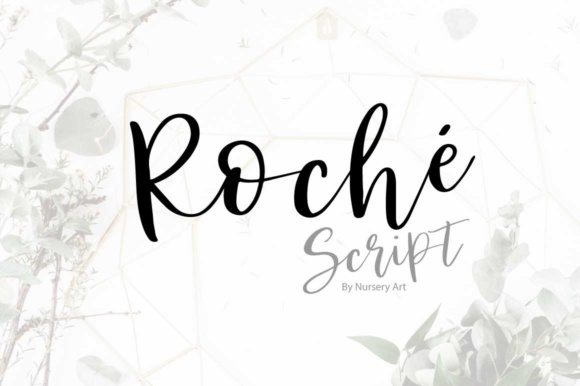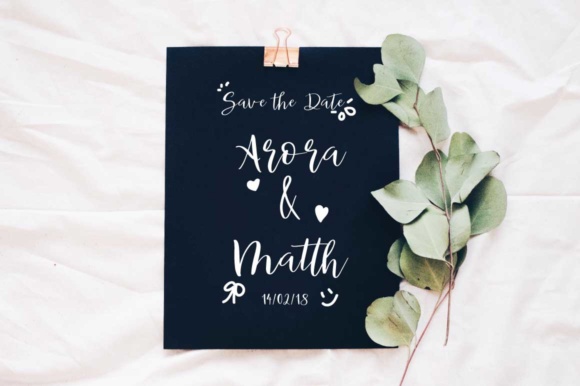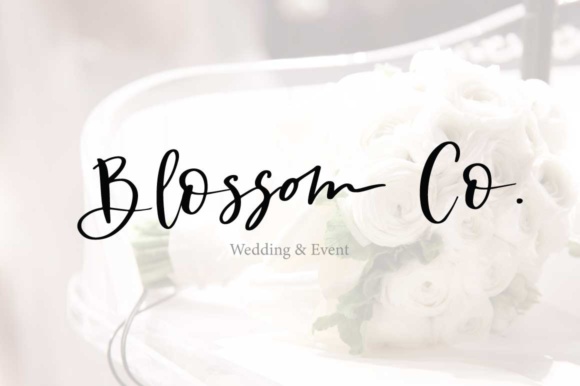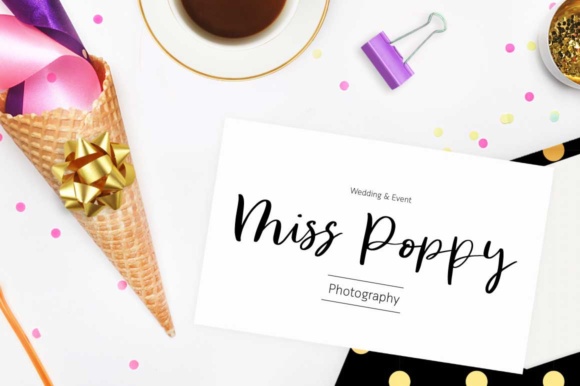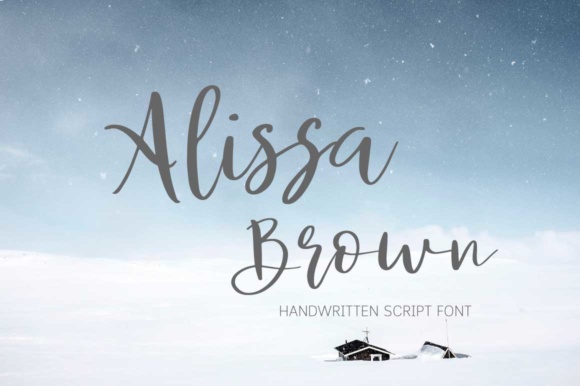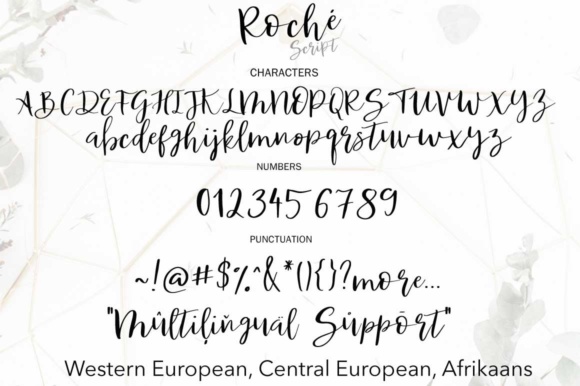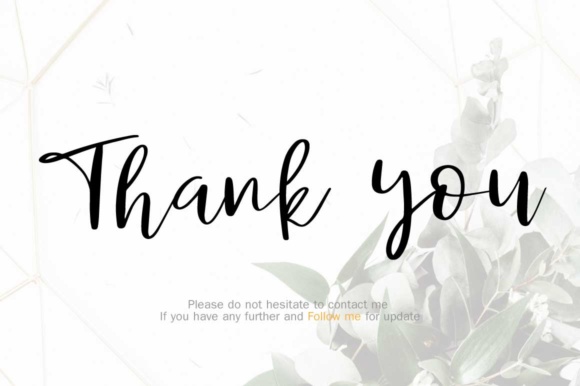
Roche Script Font
About Roche Script Font
The Roche Script is a modern, elegant font. Every single letter has been carefully created to make your text look chic.